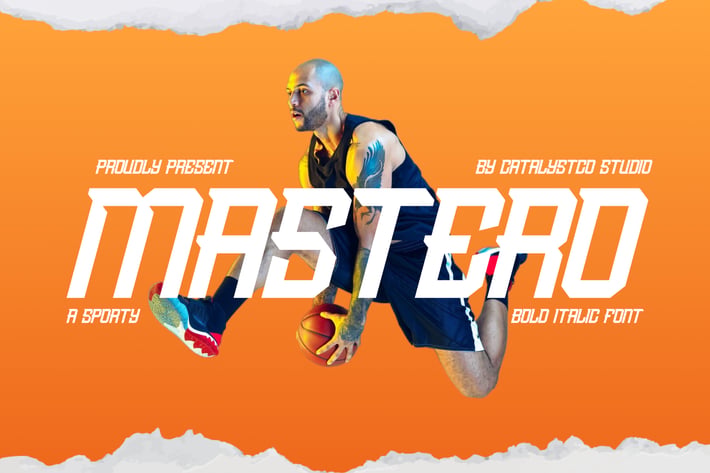
Mastero Bold Italic Font
Mastero is a sporty bold-italic display font that brings dynamic energy, sharp movement, and strong visual impact to any design. Its angular geometry and condensed shape create the look of speed, making each letter feel fast, powerful, and performance-driven. Designed for sports branding, athlete posters, headlines, and competitive visuals, this font combines modern bold styling with racing-inspired edges. The italic slant emphasizes momentum, while the structured letterforms keep everything clean and professional. Perfect for projects that need intensity, agility, and a modern athletic identity.
Suitable for sport branding, athlete posters, basketball ads, racing titles, gym promotions, esports graphics, energetic social media visuals, fitness campaigns, modern bold headlines, and any project that needs fast, competitive, and powerful athletic typography.